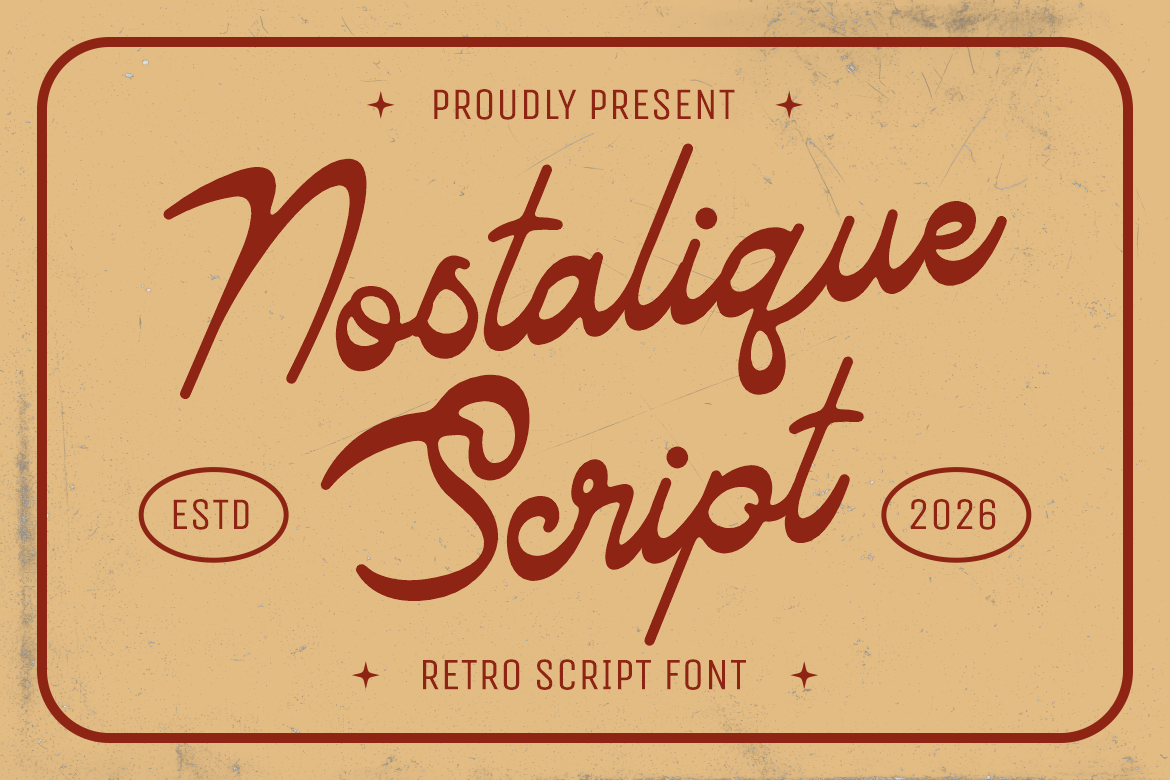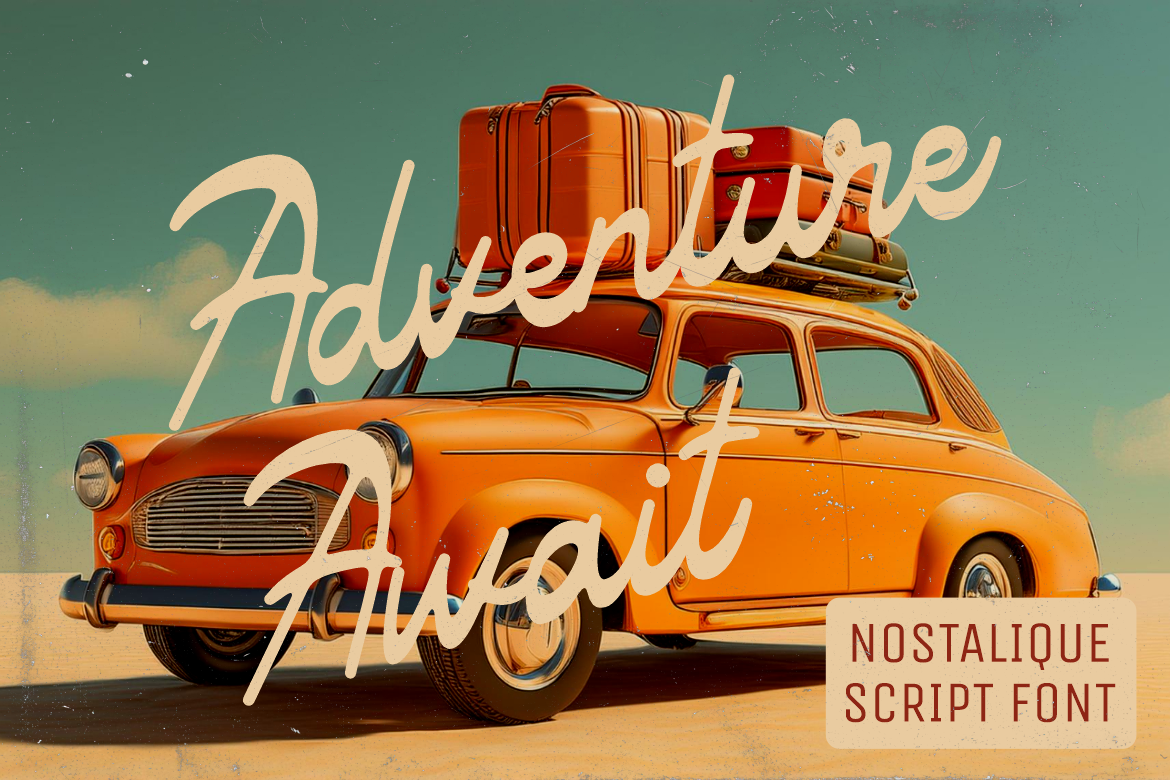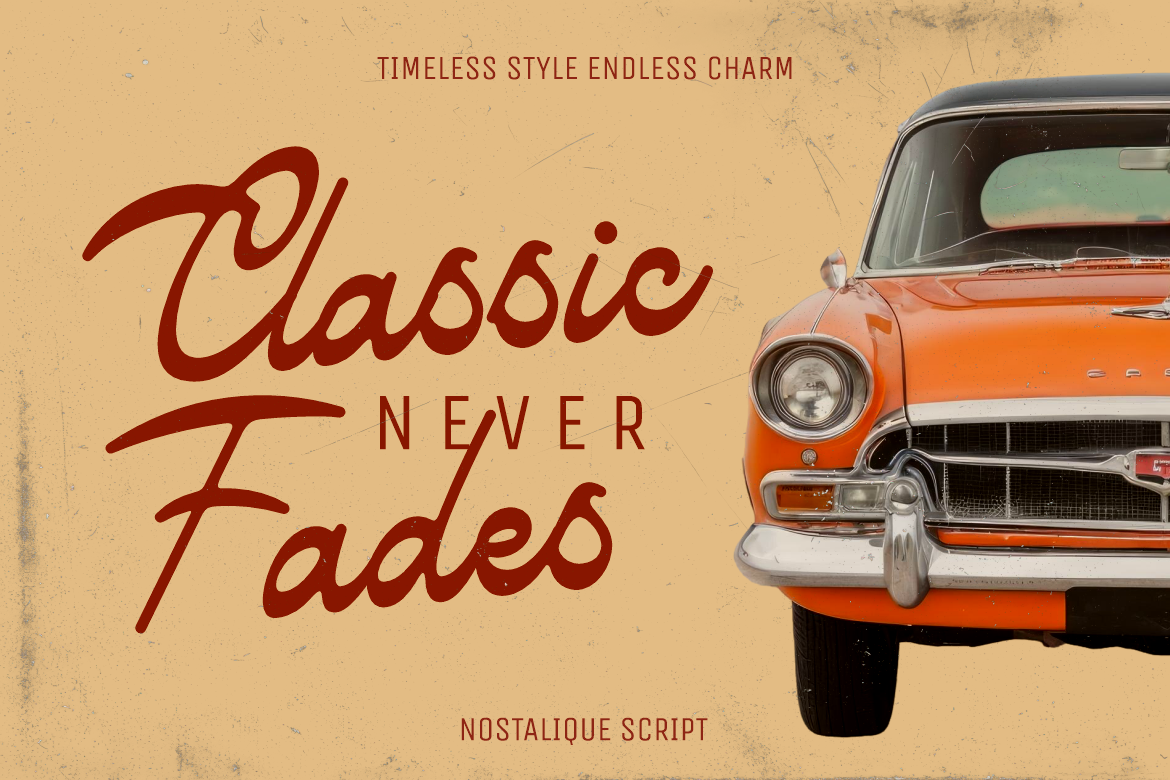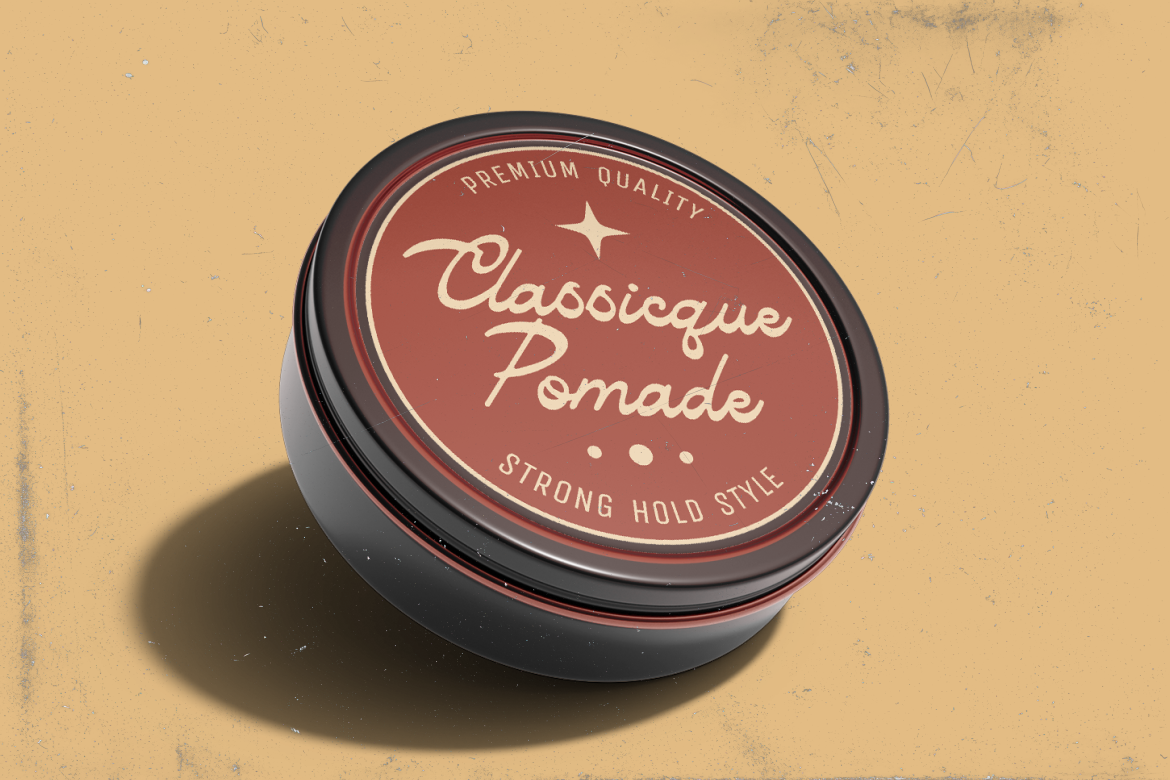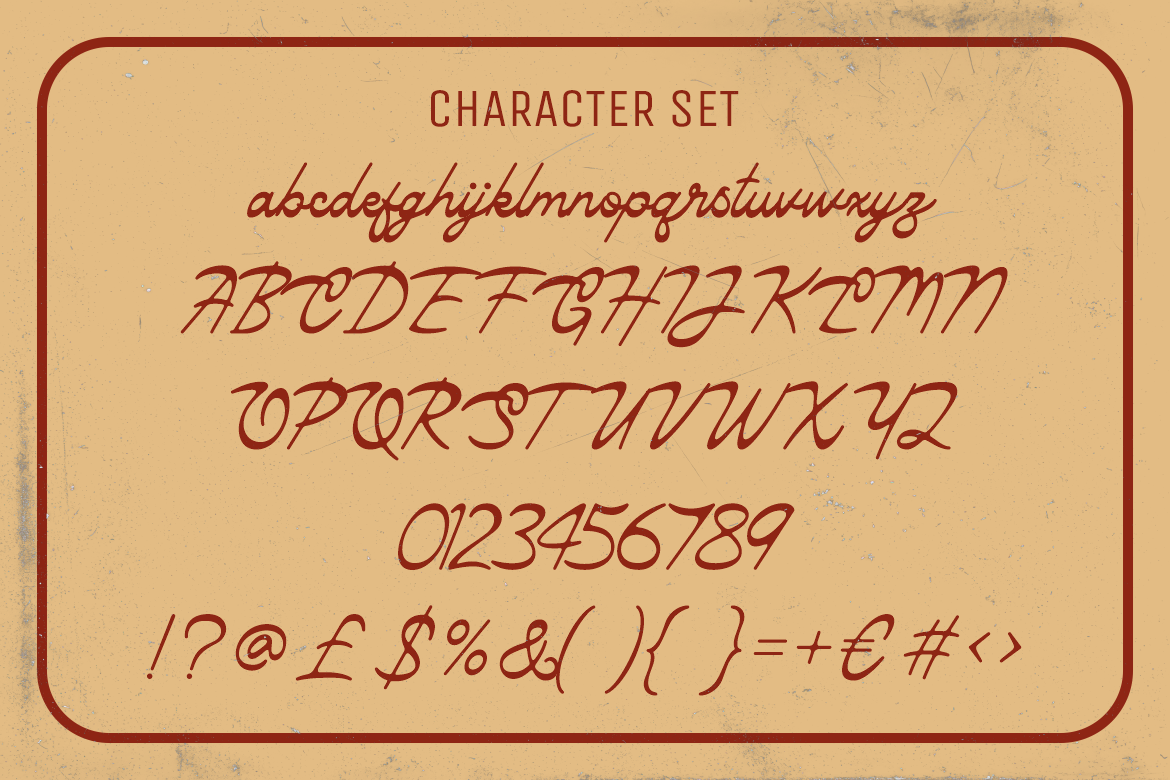
Nostalique Script Retro Script Font
Nostalique Script Retro Script Font brings a warm handwritten rhythm with flowing strokes and graceful movement. The letters feel smooth, lively, and expressive without losing clarity in short words. Tall capitals, curved terminals, and looping connections create a nostalgic voice with classic charm. Its line weight looks balanced, so headlines feel bold enough while details stay elegant. This character makes the font ideal for logo design, brand names, labels, and headline work. It suits projects that need old memories, timeless mood, and a friendly handcrafted impression.
This typeface works beautifully for vintage branding across café products, coffee labels, bakery packaging, diner menus, and beverage promotions. It also fits barbershop identity, pomade labels, grooming products, restaurant signs, and souvenir packaging. The script structure helps logos feel personal, familiar, and easy to remember. You can use it for posters, stickers, book covers, magazine titles, greeting cards, invitations, and advertising layouts. Its nostalgic character also supports travel themes, classic vehicle promotions, and heritage business campaigns that want a softer emotional connection.
Nostalique Script Retro Script Font also performs well for creative businesses beyond food and grooming markets. It can shape branding for antique stores, craft goods, home décor labels, gift shops, music events, and film titles. The flowing baseline adds motion, while the clean rhythm keeps compositions readable. Designers can mix it with simple supporting text for stronger contrast and clearer hierarchy. Use it when a project needs charm, memory, and identity in one voice. It gives packaging, signage, and promotional materials a classic tone that feels lasting.